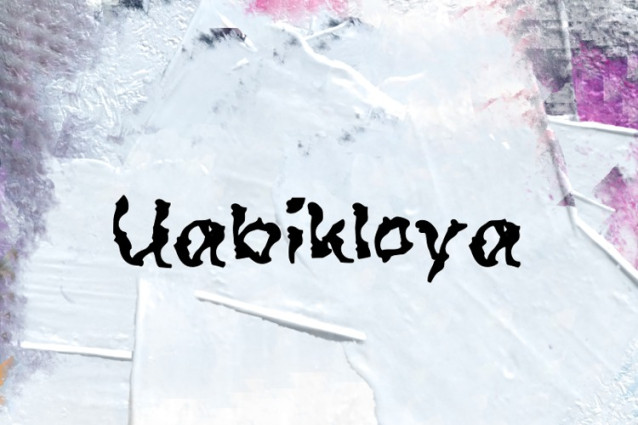
Uabikloya Font
Uabikloya Font is a chunky, comic, and cartoon display font. With its neat and joyful personality, this font will enhance any project you wish to create!